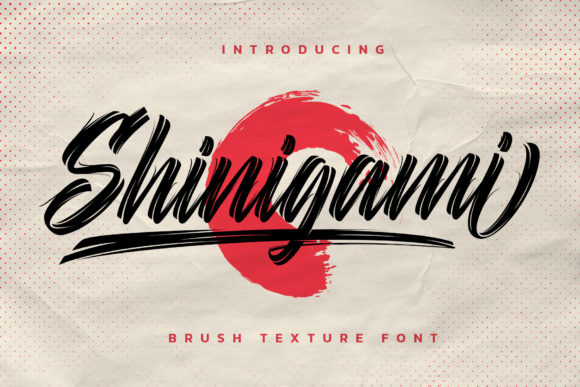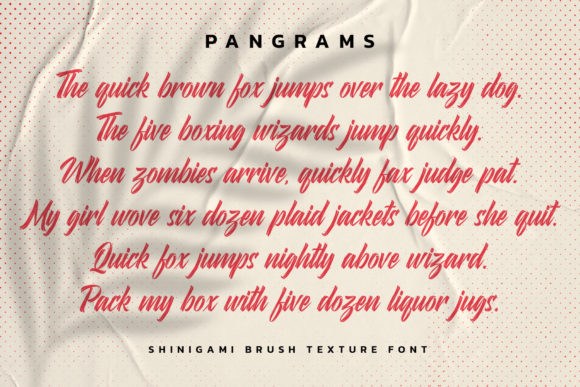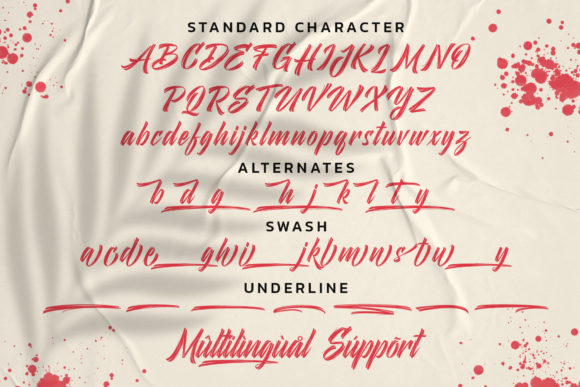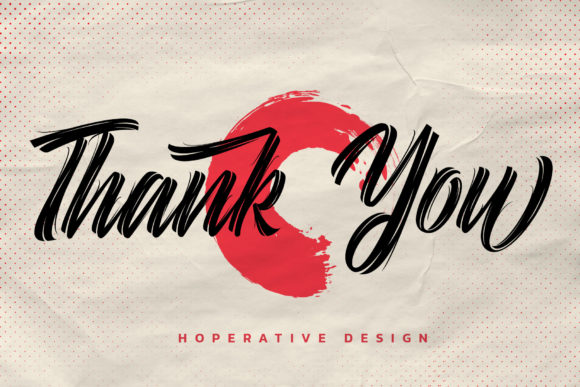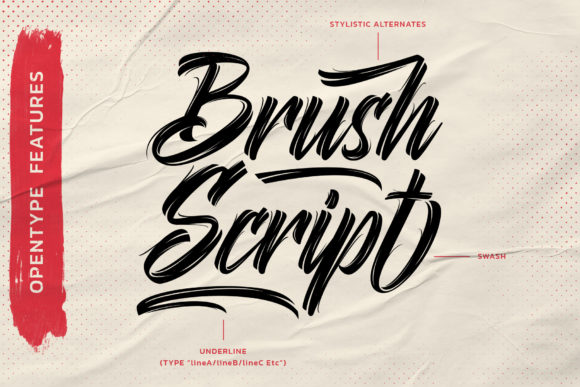
Shinigami Font
About Shinigami Font
Shinigami is a gorgeous and bold handwritten font, crafted to give your headlines and logotype projects a retro touch. This font is PUA encoded which means you can access all of the glyphs and swashes with ease!